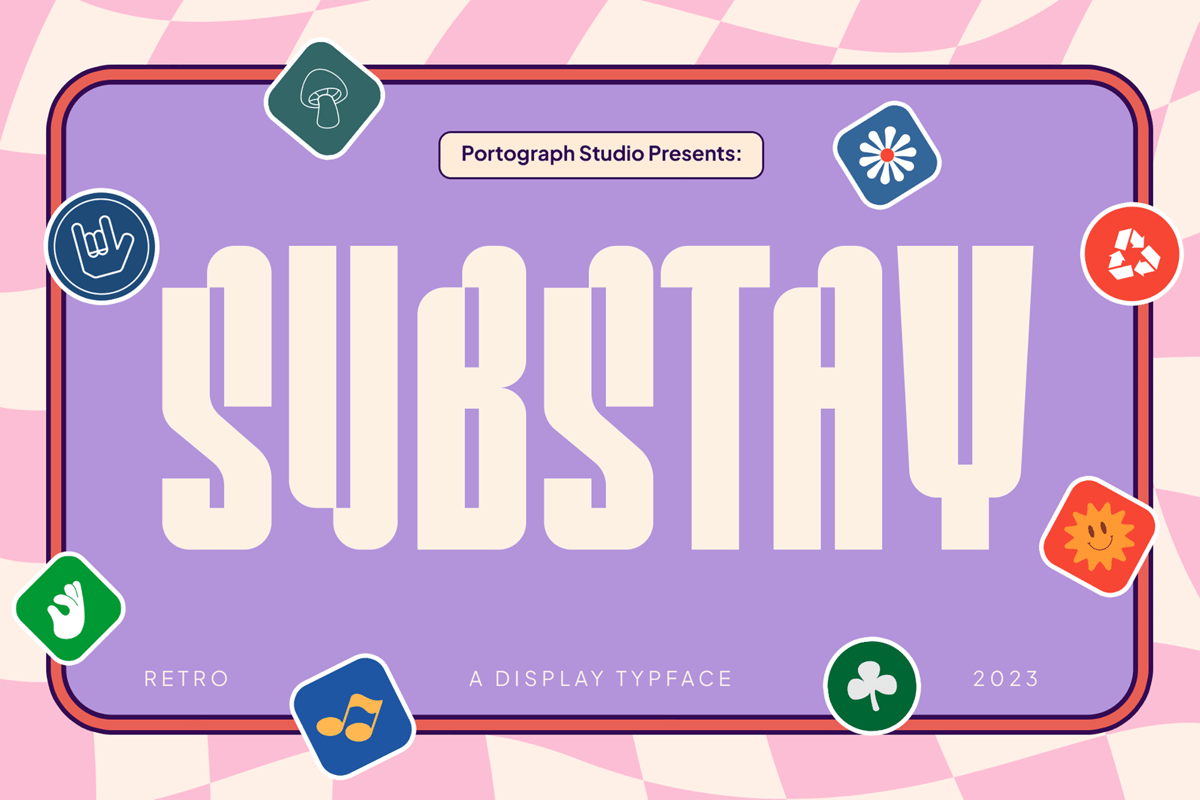
Substay – Retro Bold Display Font
Bring bold retro charm to your designs with Substay's chunky, nostalgic appeal and modern clarity.
Substay is a retro-inspired bold display typeface engineered to deliver powerful visual impact with a playful and nostalgic aesthetic. This distinctive font showcases tall proportions, chunky letterforms, and smooth rounded edges that perfectly blend classic vintage vibes with contemporary readability.
Ideal for designers seeking to inject retro charm, personality, and confidence into their typography projects, Substay transforms ordinary text into eye-catching design elements.